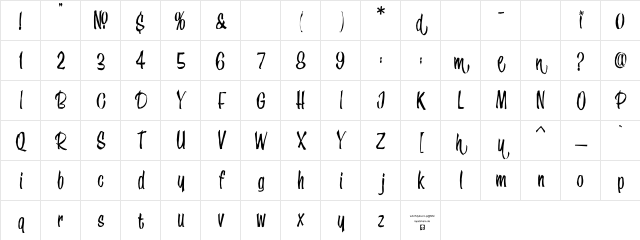
Complete LHF Speedstyle I Bold Regular glyph index. Displaying only characters natively supported by LHF Speedstyle I Bold Regular font.
LHF Speedstyle I Bold is a composed and adaptable typeface that performs quietly and consistently across a wide range of design contexts. Its bold stroke weight gives it real presence on the page.
Who designed the LHF Speedstyle I Bold Regular font?
This font was published by Arthur Vanson for Letterhead Fonts. Check the technical specs section for copyright and designer details.